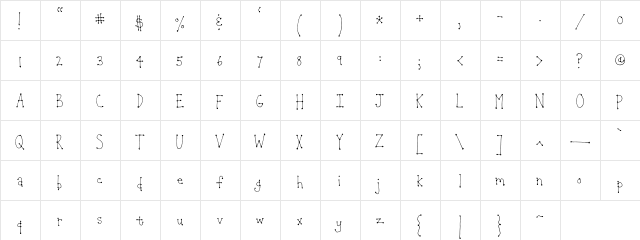
JeanSunHo Medium
JeanSunHo takes a measured approach to typography — its balanced proportions and neutral character make it a reliable workhorse for both digital and print work.
Pro Tip: Use JeanSunHo in both headline and body roles to test its range before committing to a single application.